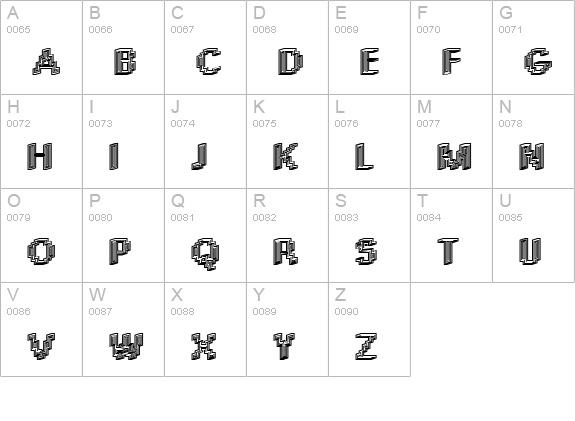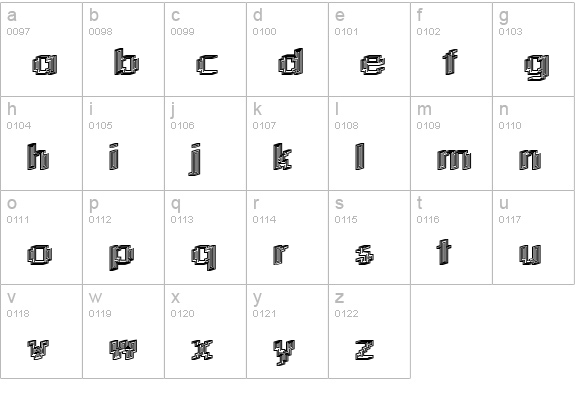
Rough04-Bold is a strong, high-contrast variant in the Rough04 typeface family \xE2\x80\x94 well suited to headlines, attention-grabbing titles, and strong calls-to-action.
Rough04-Bold font is a bold and rugged typeface that exudes a sense of strength and durability. Its rough edges and bold strokes give it a distinctive and impactful appearance, making it perfect for designs that require a bold statement. Whether used for headlines, logos, posters, or branding materials, Rough04-Bold font commands attention and leaves a lasting impression. The best part is that Rough04-Bold font is available for free download at FontsMarket.com. This means you can easily access this powerful font and incorporate it into your projects without any cost. Don't miss out on the opportunity to add Rough04-Bold font to your collection and elevate your designs with its bold and dynamic presence.